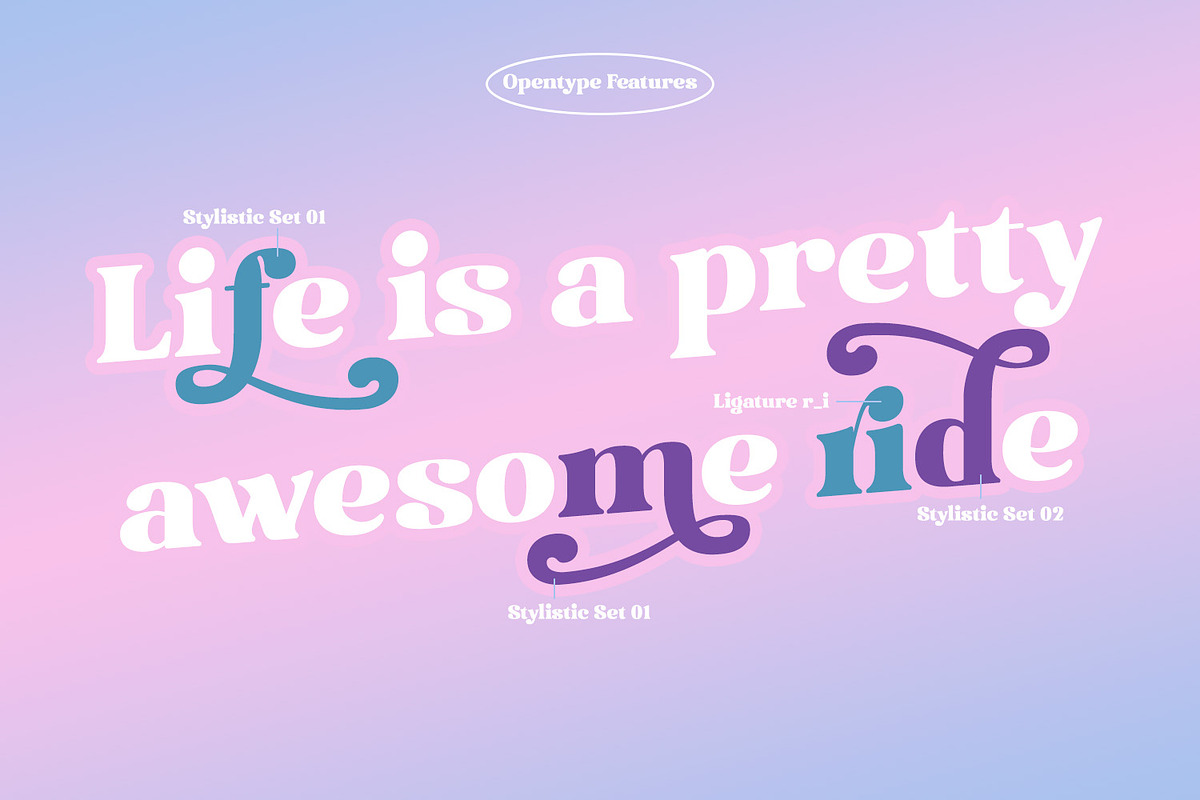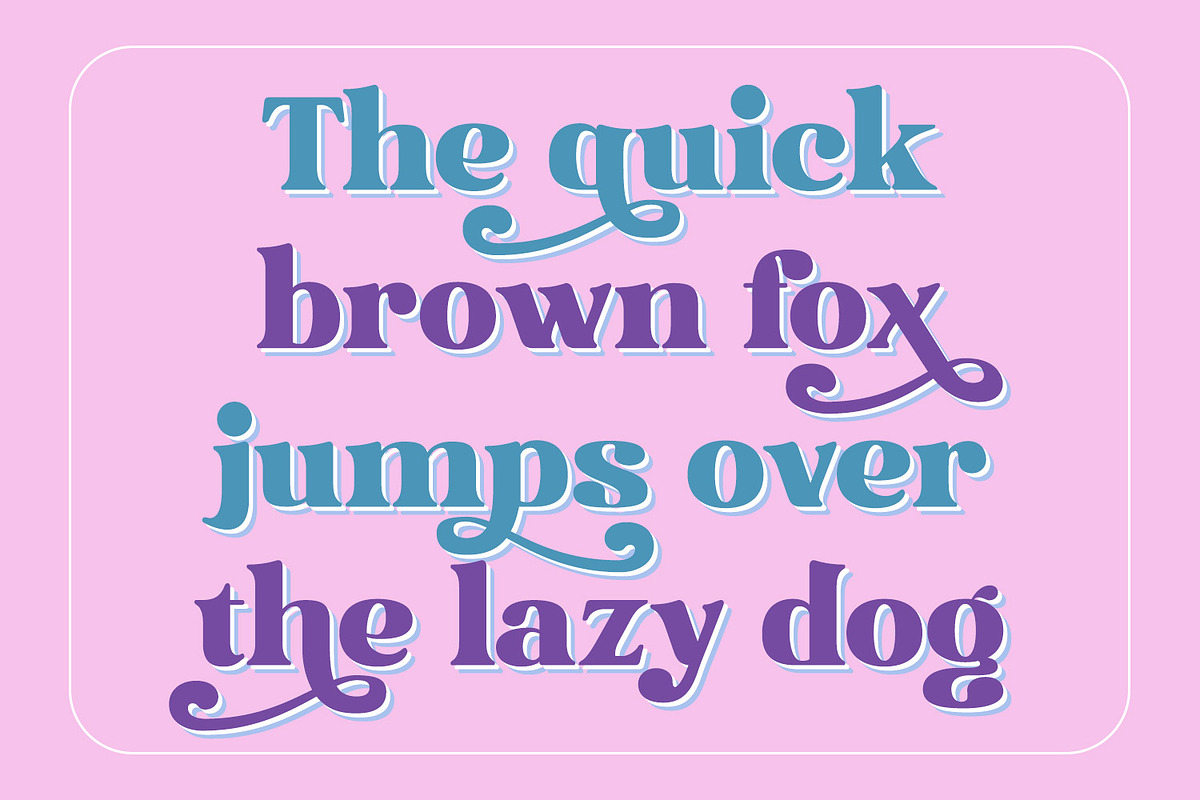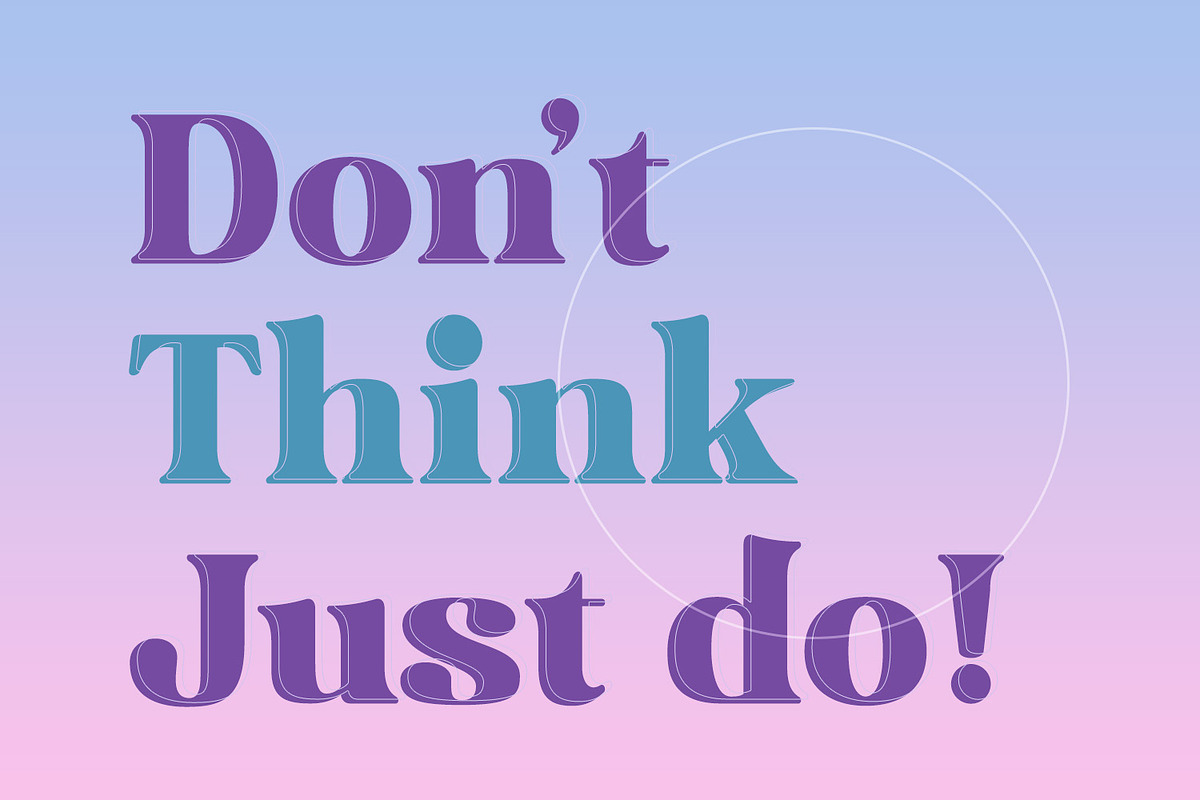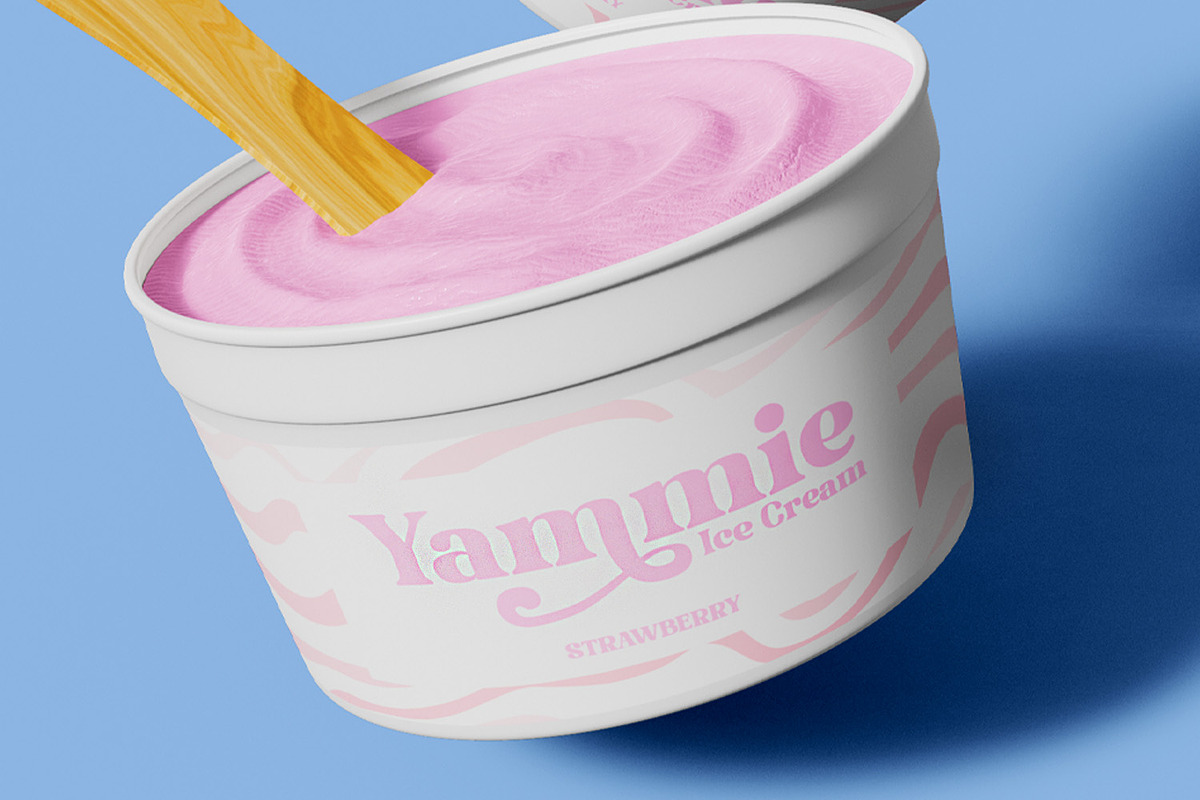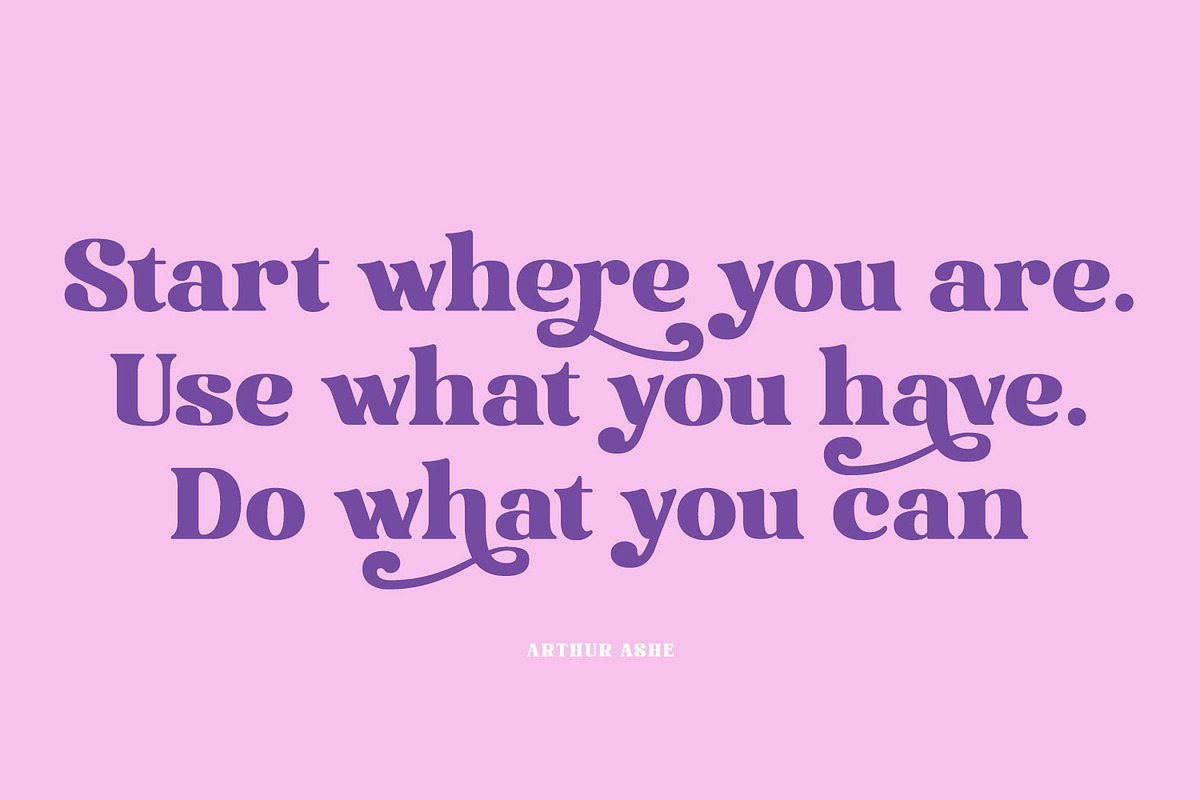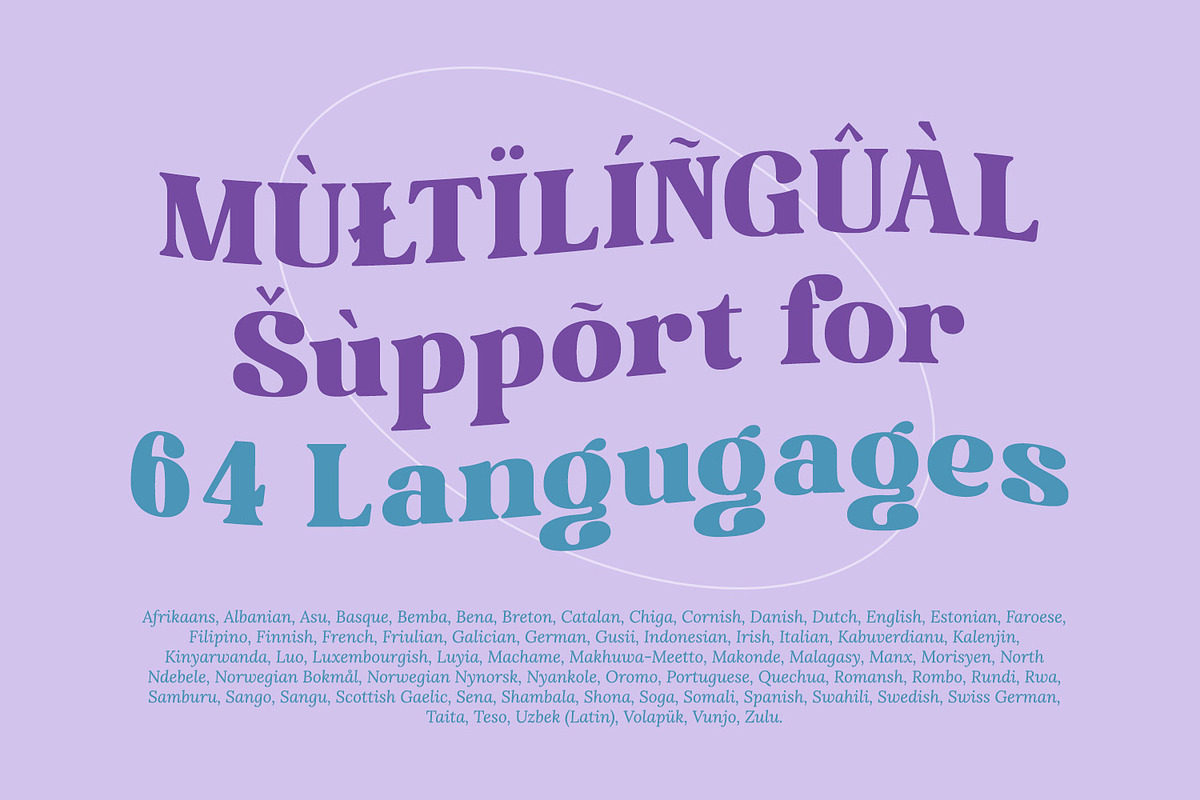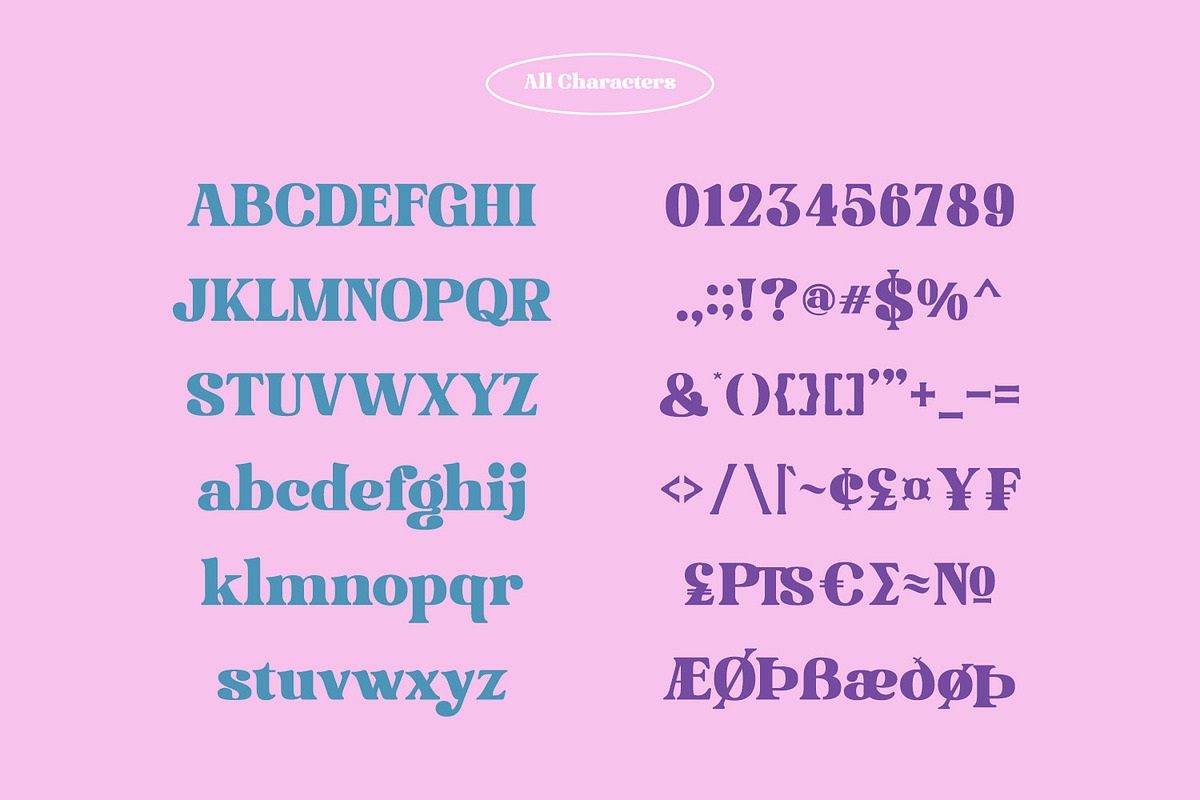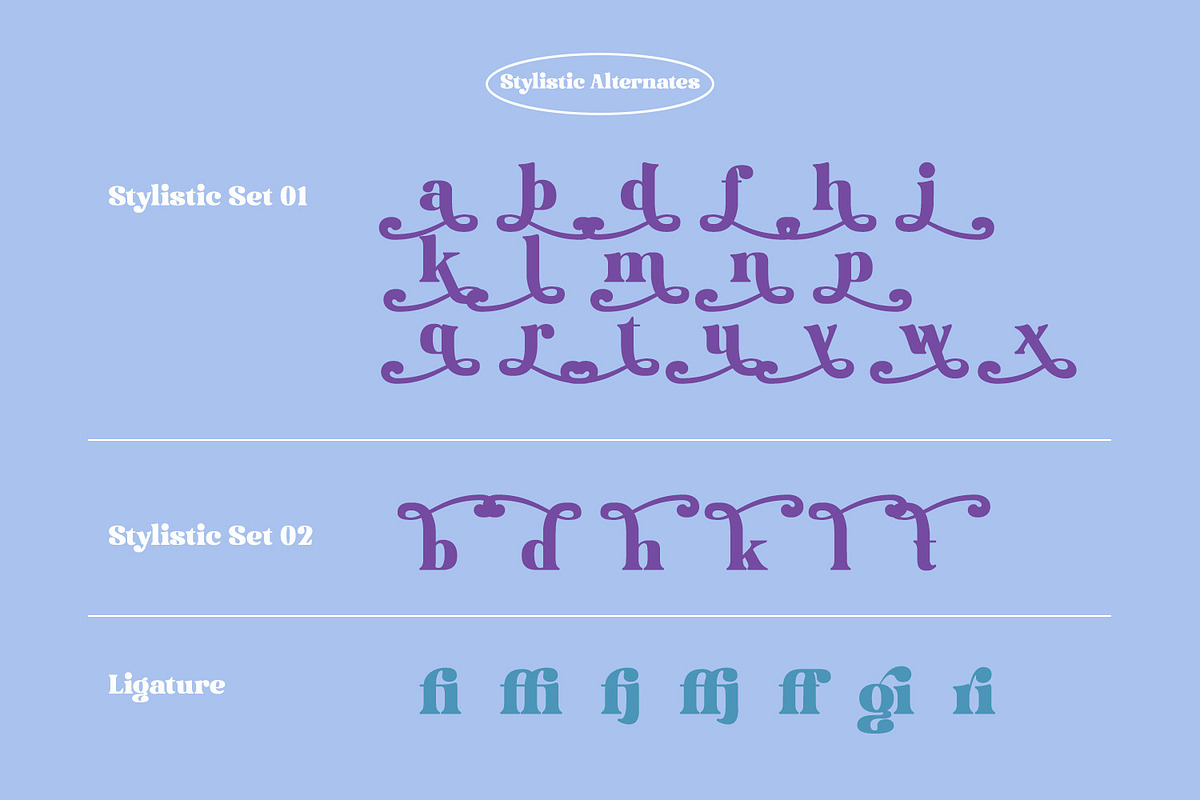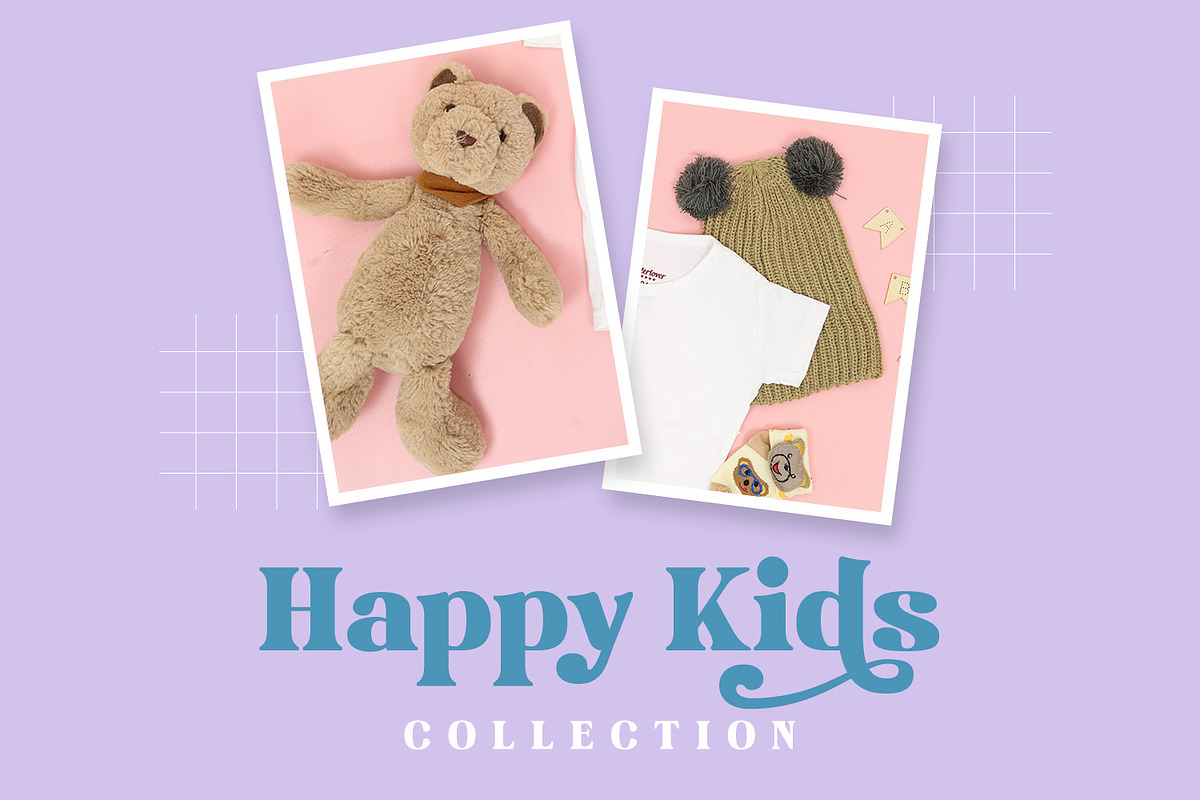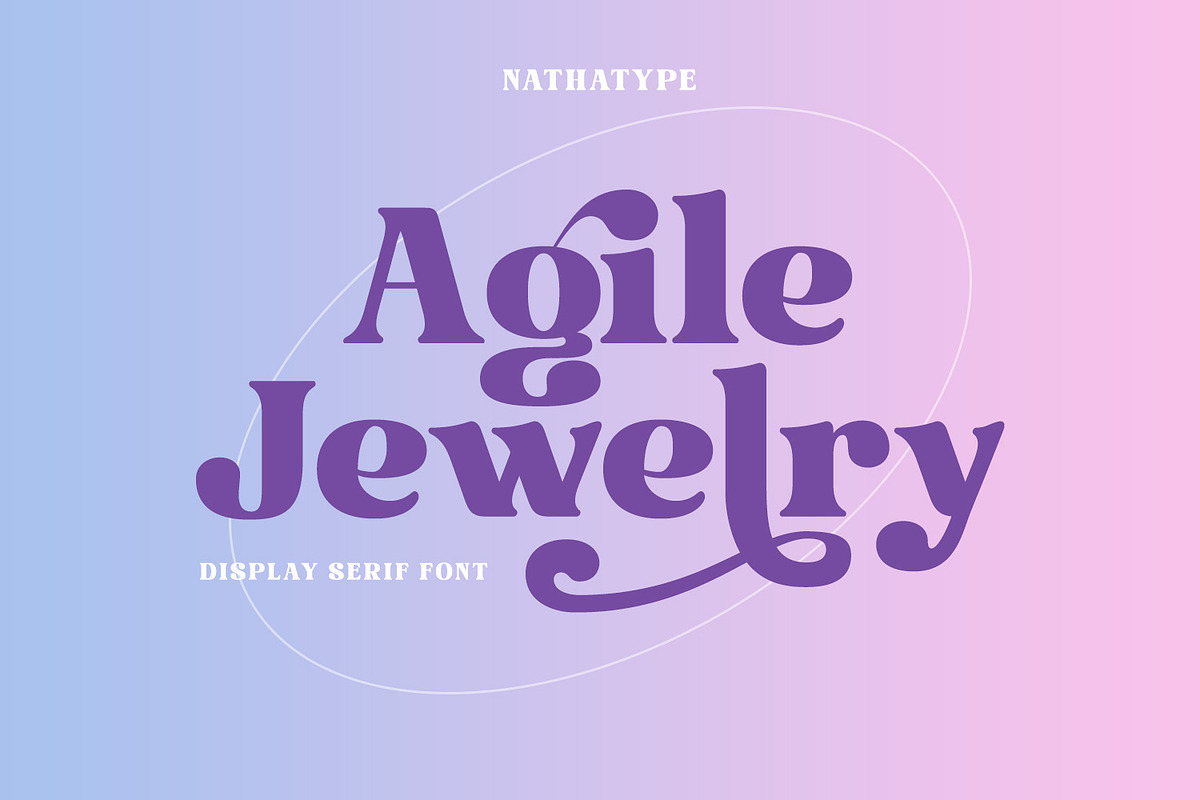
Agile Jewelry
Agile Jewelry a stylish, modern display serif font to give you informal, modern impressions. The characteristics of this font are the extra hooks on the letters’ edges and some of the letters have curvy ending wipes. The thick and thin lines on every letter are clearly visible. For a legibility reason, apply this font for big-sized texts instead of the body texts.
- Stylistic Sets
Agile Jewelry fits for various design projects, such as posters, banners, logos, magazine covers, quotes, headings, printed products, merchandise, social media, etc. Find out more ways to use this font by taking a look at the font preview.